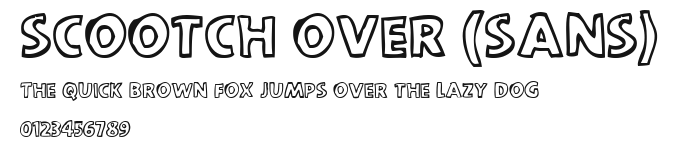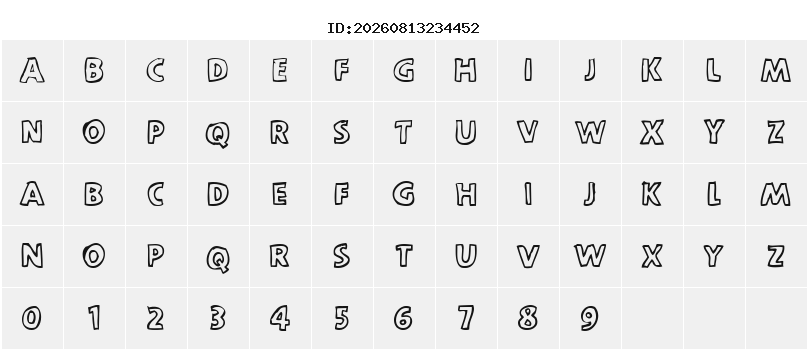
About scootch over (sans).ttf
scootch over (sans).ttf is a modern, elegant sans-serif font designed for ultimate readability and visual harmony. Perfect for branding, headlines, web design, and print materials.